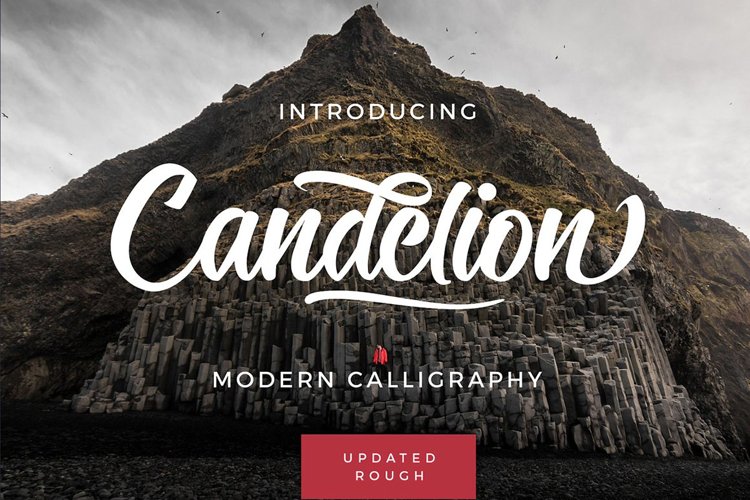
Candelion Casual Script
A font that is inspired by urban or freestyle artworks. With casual or marker style and lot of stylistic alternates you can create realistic headers. Comes also with swashes font. It works beautifully for branding, advertising or creative headers.
-A font that is inspired by urban or freestyle artworks